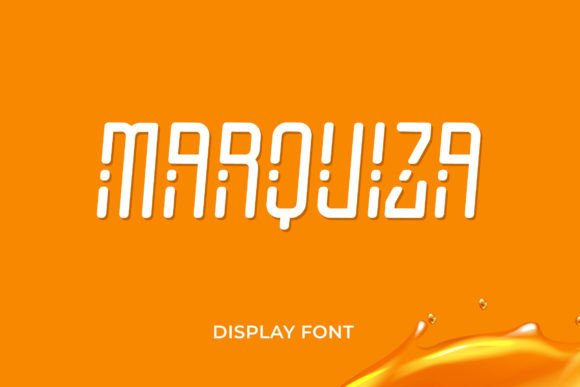
Welcome to the realm of Marquiza, a modern and captivating display font crafted by the skilled hands at Mightyfire. This exquisite creation is a symphony of elegance, strength, and versatility, ready to elevate your projects to new heights.
Marquiza is more than just a font; it's a statement of individuality and creativity. Its clean lines and bold curves dance together in perfect harmony, creating a visual masterpiece that commands attention.
With its versatility, Marquiza effortlessly adapts to any project, from sports and e-sports logos to book titles, captivating headlines, banners, flyers, and stationery. Its scalability ensures that it shines in any size, making it a true all-rounder.
Imagine your sports logo emblazoned in the bold and powerful strokes of Marquiza, leaving an indelible mark on the minds of your audience. Or picture your book title adorned with this font's elegant charm, inviting readers into a world of imagination.
Marquiza is the key to unlocking your creative potential. Its timeless beauty and versatility make it the perfect companion for designers and artists seeking to create something truly extraordinary. Let Marquiza be the brush that paints your creative vision into reality.